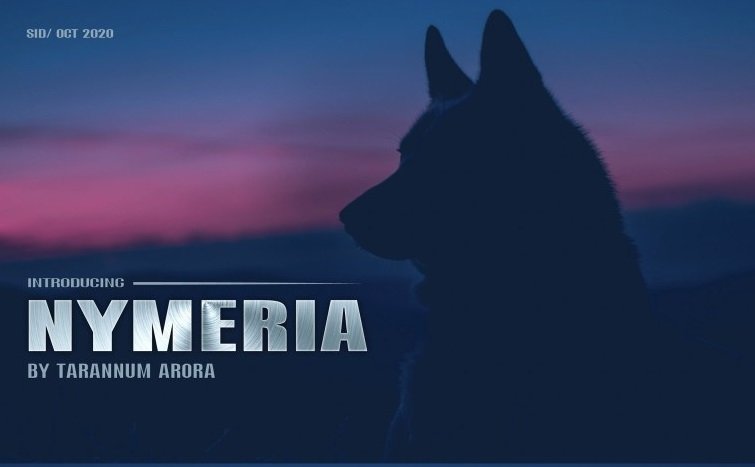
Nymeria Font Family
Introducing Nymeria Basic Sans Font Family is a modern sans serif font family. You can use sans serif font feature in many areas easily. This font offers a wide variety of styles to help you discover the best mood for your projects.
It’s a modern Sans Serif typeface very much suitable for Film Posters, headlines, Block letter, Subheadings, Logo Designs, Big Banners. Classic & Decorative Typography Web Designs. This font is free for PERSONAL AND COMMERCIAL USE.